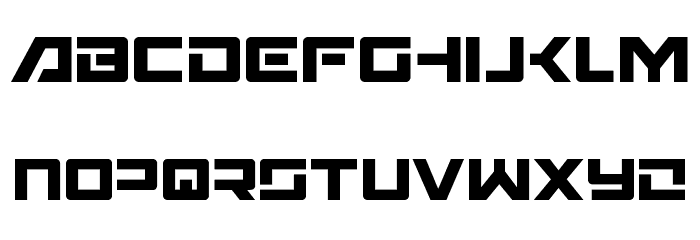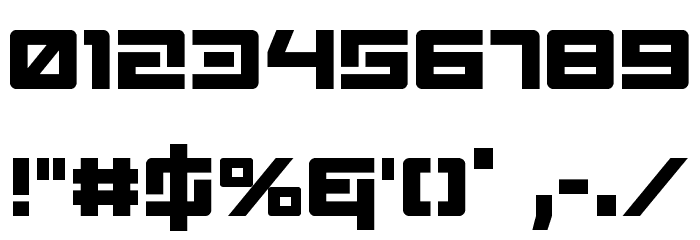
Wildcard Condensed Font
This font features a bold, geometric design with a futuristic and industrial feel. The characters are constructed with thick, uniform strokes, giving them a strong presence. The angular shapes and sharp edges contribute to its modern aesthetic, while the condensed width allows for efficient use of space. The uppercase letters are particularly striking, with unique design elements such as slashes and cutouts that add a distinctive flair. The numerals and special characters maintain the same bold and angular style, ensuring consistency across all glyphs.
A bold, geometric font with a futuristic and industrial design.
- Font: Wildcard Condensed
- Proposed Projects: Ideal for technology branding, sci-fi movie posters, video game titles, and modern advertising.